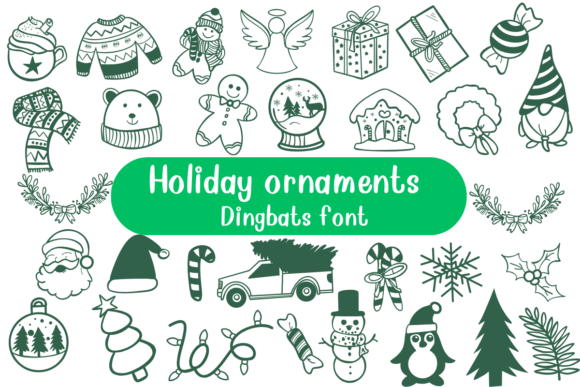
Unleash the Magic of the Holiday Season with the Perfect Font
There’s something special about the moment when you start planning your holiday decorations, the sparkly lights, the cozy atmosphere, and the festive cheer that fills the air. For designers, this is the perfect time to get creative and bring the magic of the season to life. One way to do this is with the right font, and that’s where the Holiday Ornaments Font comes in – a delightful dingbats font that’s sure to add a touch of whimsy to your projects.
Designed with a sketch style, this font is perfect for adding a personal touch to your creative projects, from wedding invitations to DIY crafts and decorations. Its versatility and charm make it a valuable asset for designers looking to elevate their work and stand out from the crowd.
Holiday Ornaments Font Key Features
- Unique Characteristics: Holiday Ornaments Font features a distinctive, whimsical design inspired by traditional holiday ornaments. The font includes a range of ornaments, garlands, and other festive elements that can be used to create unique and eye-catching designs.
- Characters and Glyphs: The font includes a wide range of characters, including uppercase and lowercase letters, numbers, punctuation marks, and ornaments. The ornaments can be used to create custom designs, such as garlands, wreaths, and other festive elements.
Designer Review: Holiday Ornaments Font
As a designer, I was excited to dive into the “Holiday Ornaments Font” and see how it could bring some festive flair to my projects. Overall, I have mixed feelings about this font.
- The font is highly customizable, with a wide range of color options and styles to choose from.
- The ornaments and decorations included with the font are beautifully designed and add a touch of whimsy to any project.
- The font is fully editable, making it easy to customize the ornaments and decorations to fit my specific needs.
- The font is a bit over-the-top for some projects, and may come across as too cheesy or kitschy.
- The ornaments and decorations can be a bit cluttered, and may be difficult to read in certain contexts.
- The font is not ideal for body text, and may be better suited for headlines or decorative elements.
Overall, I think the “Holiday Ornaments Font” is a great option for designers looking to add some festive flair to their projects. However, it’s not a one-size-fits-all solution, and may not be suitable for every project or design style.